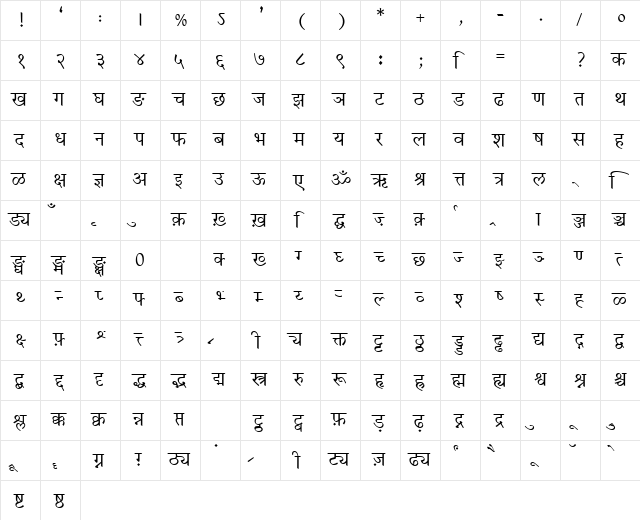
Kautilya Regular
Design Context for Kautilya Typeface
Kautilya takes a measured approach to typography — its balanced proportions and neutral character make it a reliable workhorse for both digital and print work.